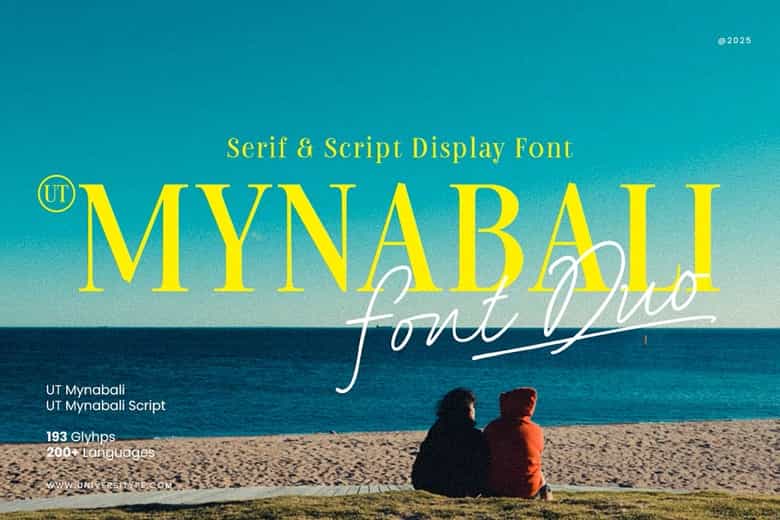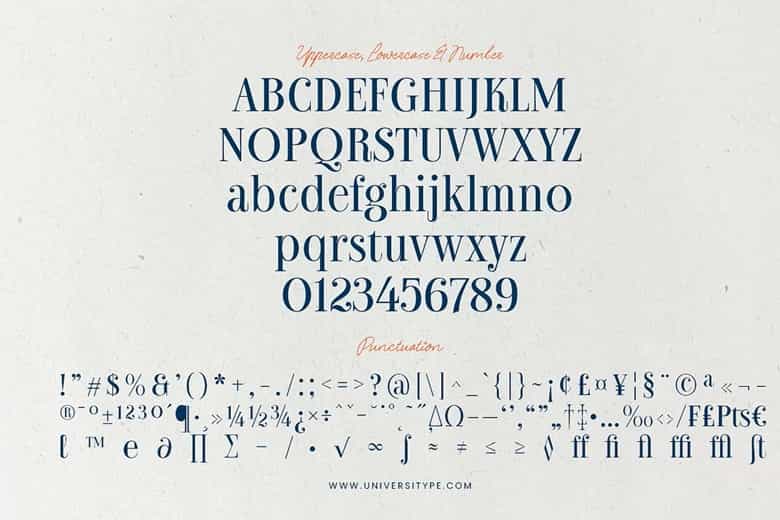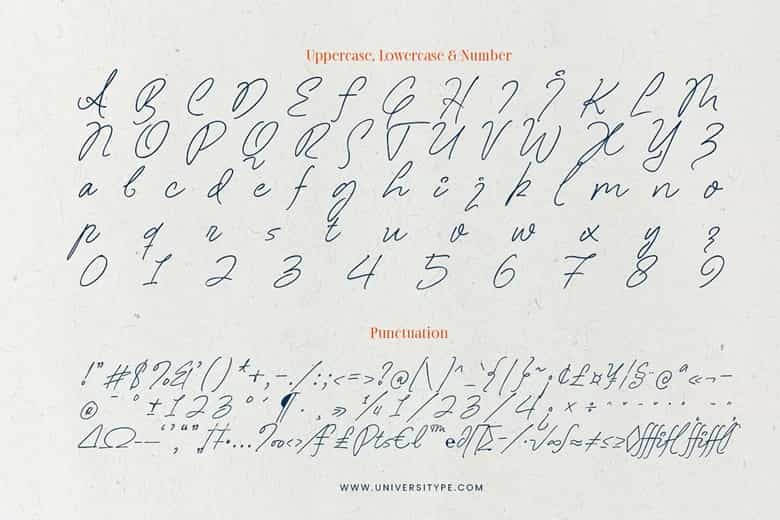
The UT Mynabali Font Duo can be best described as a combination of both traditional and ‘earthy’ appeal. This typeface set consists of a precise serif and an alluring script handwritten so that the typeface can be equally elegant and friendly. It has all the characteristics of Balinese art but at the same time does not look worn and very modern.